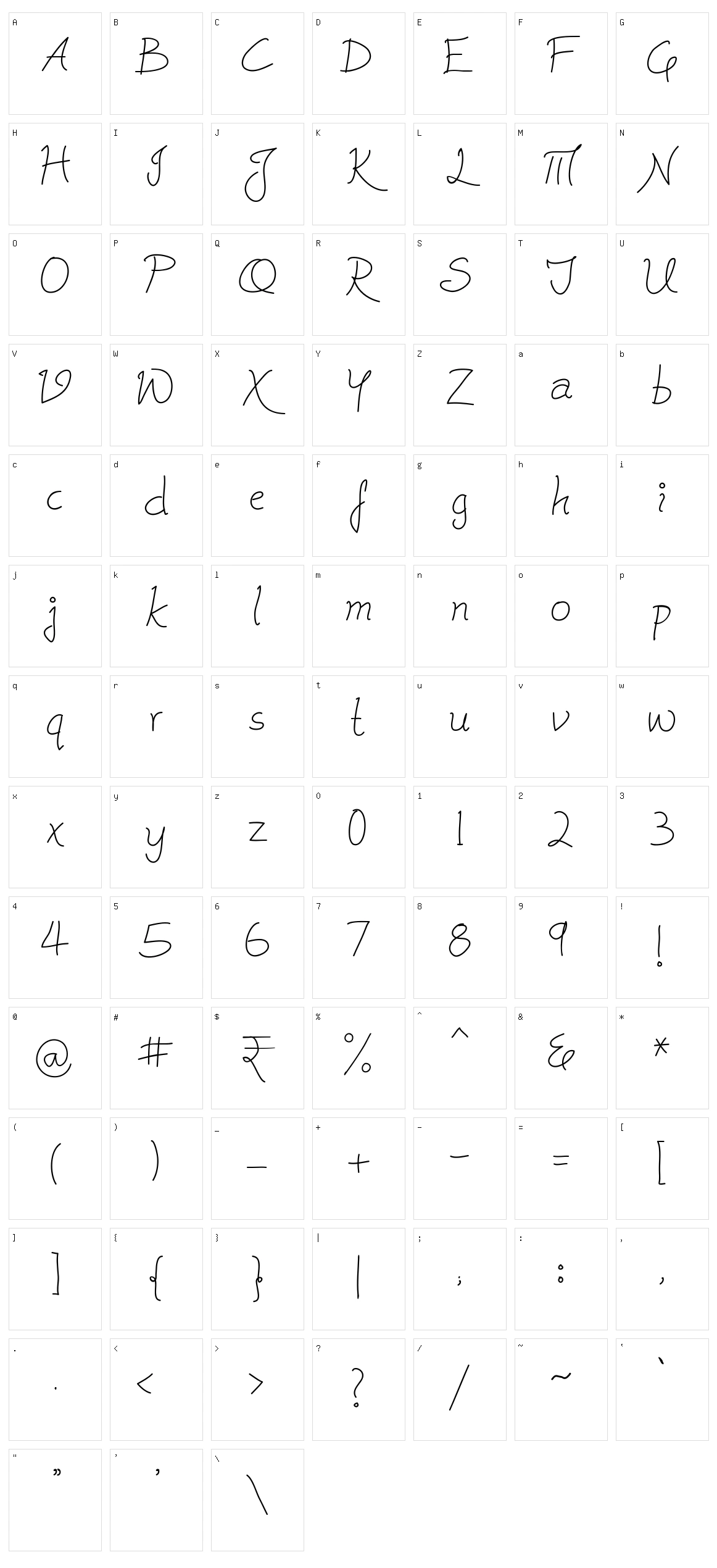
The free font Cleavin is carefully designed by Vinay Suresh, showcasing a thoughtful balance of creativity and usability and falls under the Script font style. When you download the ZIP file, it contains only 28.19 KB of font files, making it lightweight and quick to download. Please review the license details below to understand permitted usage and distribution rights. If license information is not available, we recommend using this font for personal projects only or contacting the author directly for commercial usage permissions.